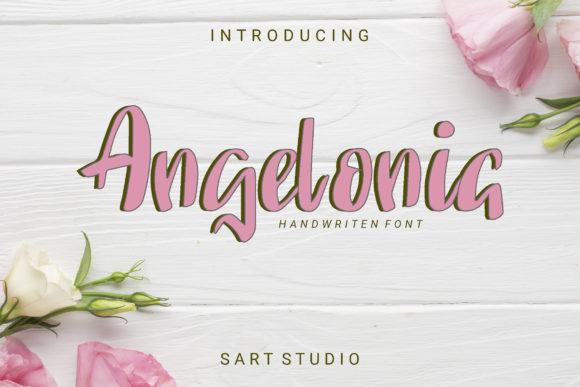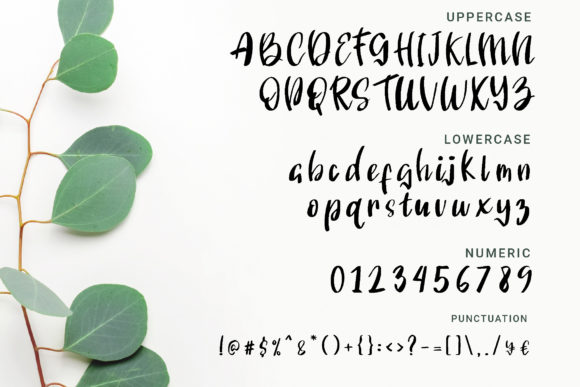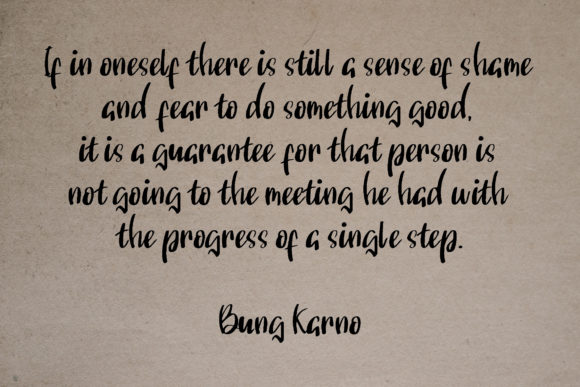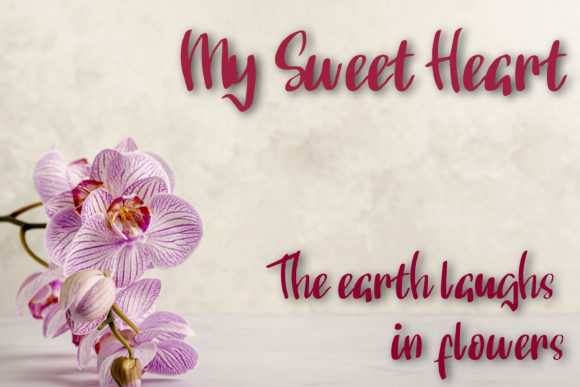
About Angelonia Font
Angelonia is a delicate and elegant handwritten font. Its distinct and well balanced letters make this font a masterpiece. Fall in love with its incredibly versatile style and use it to create spectacular designs!